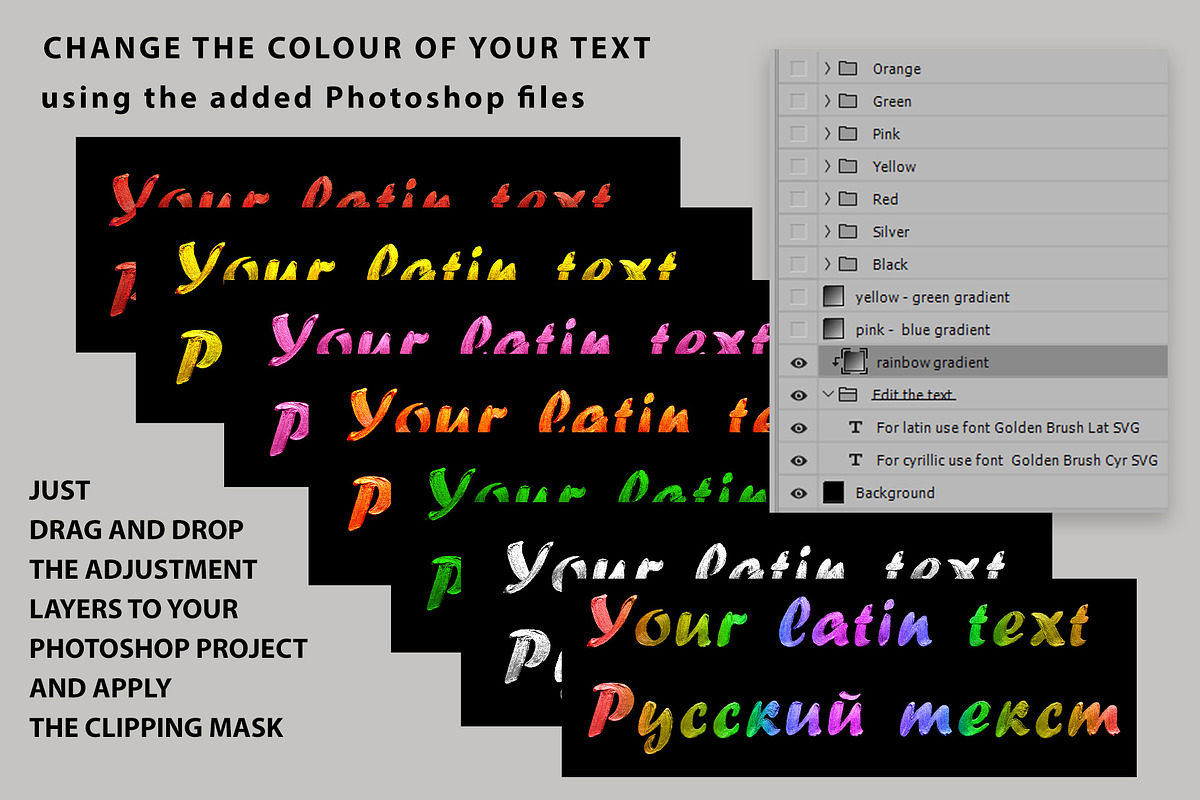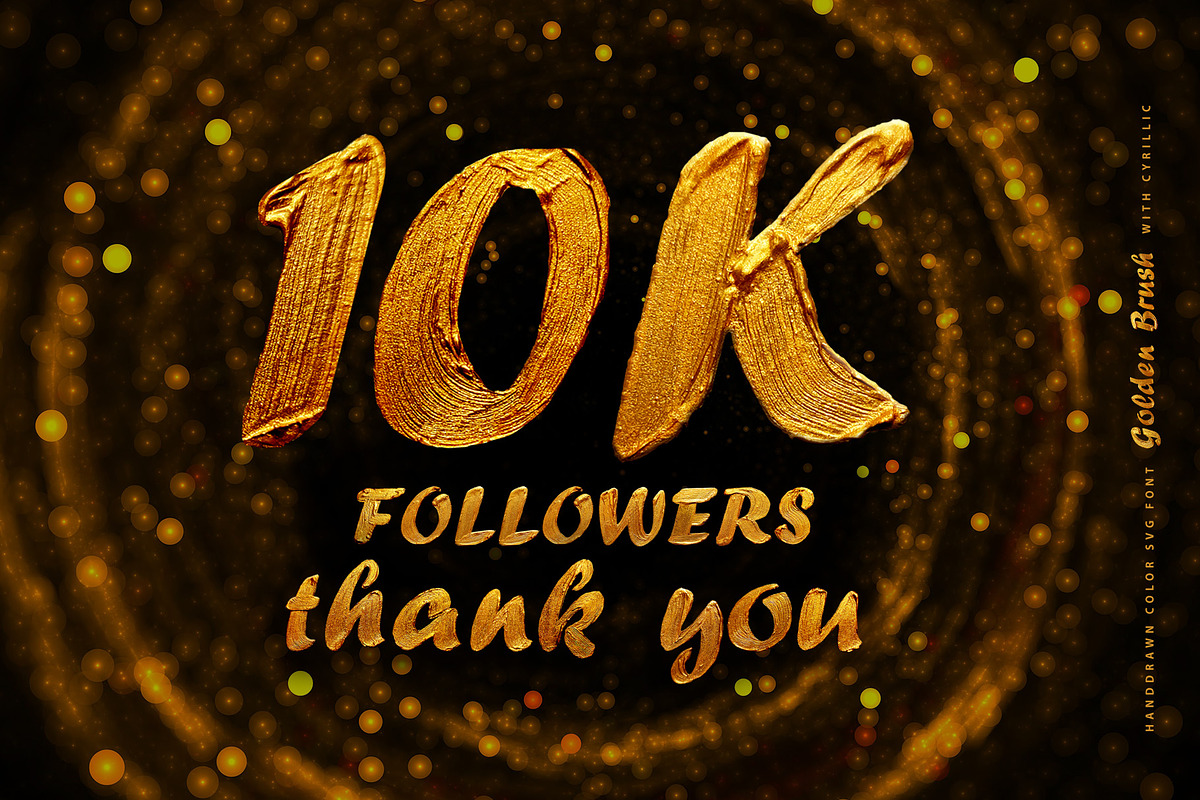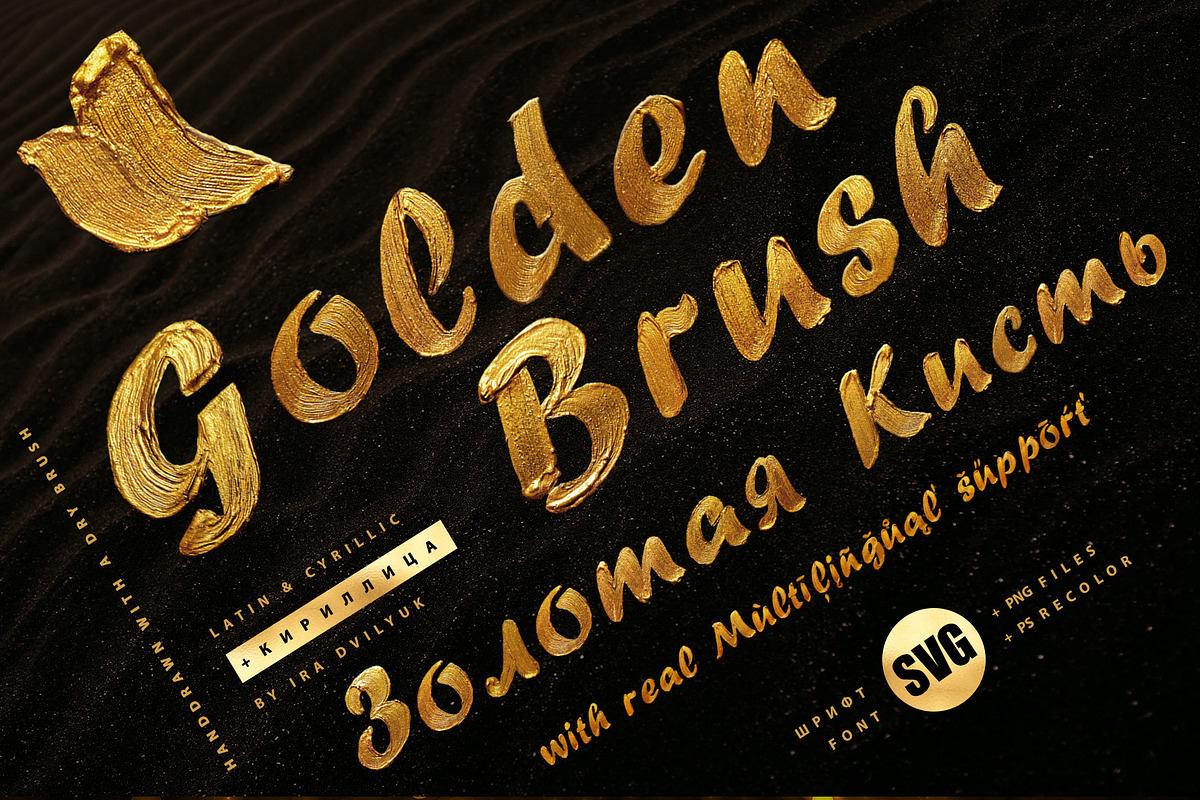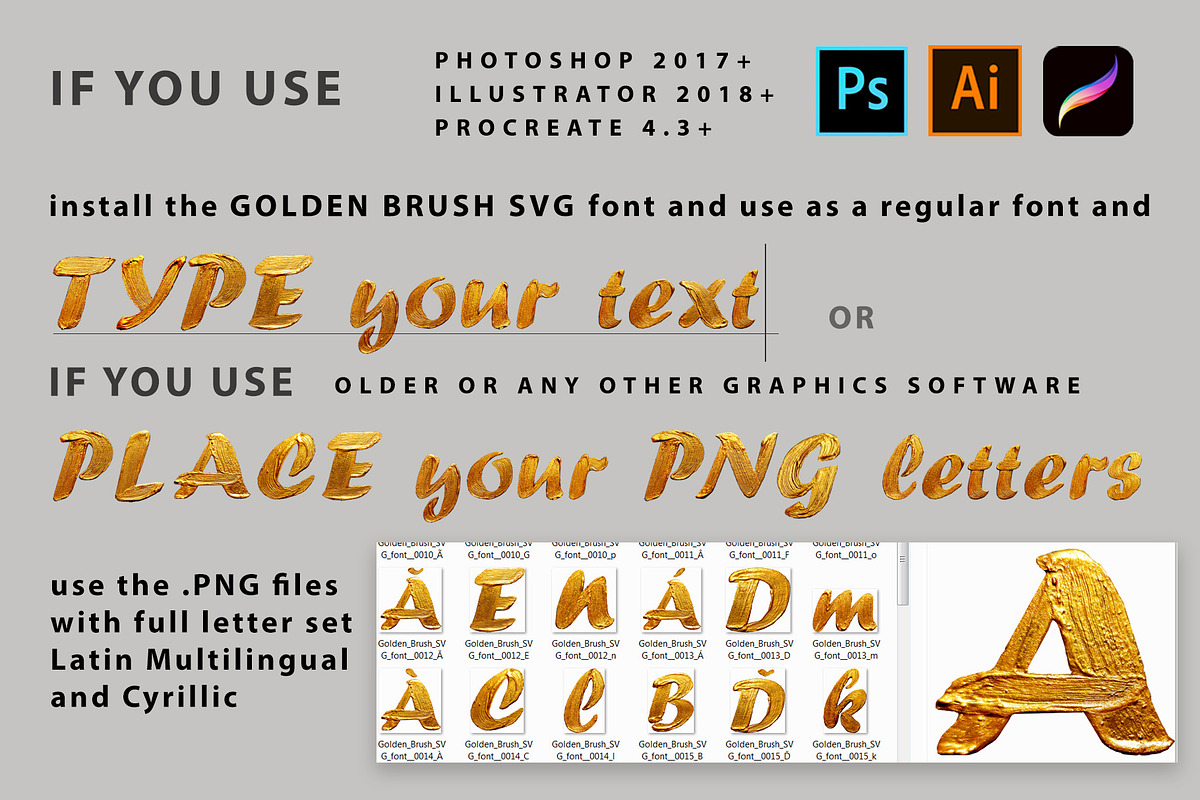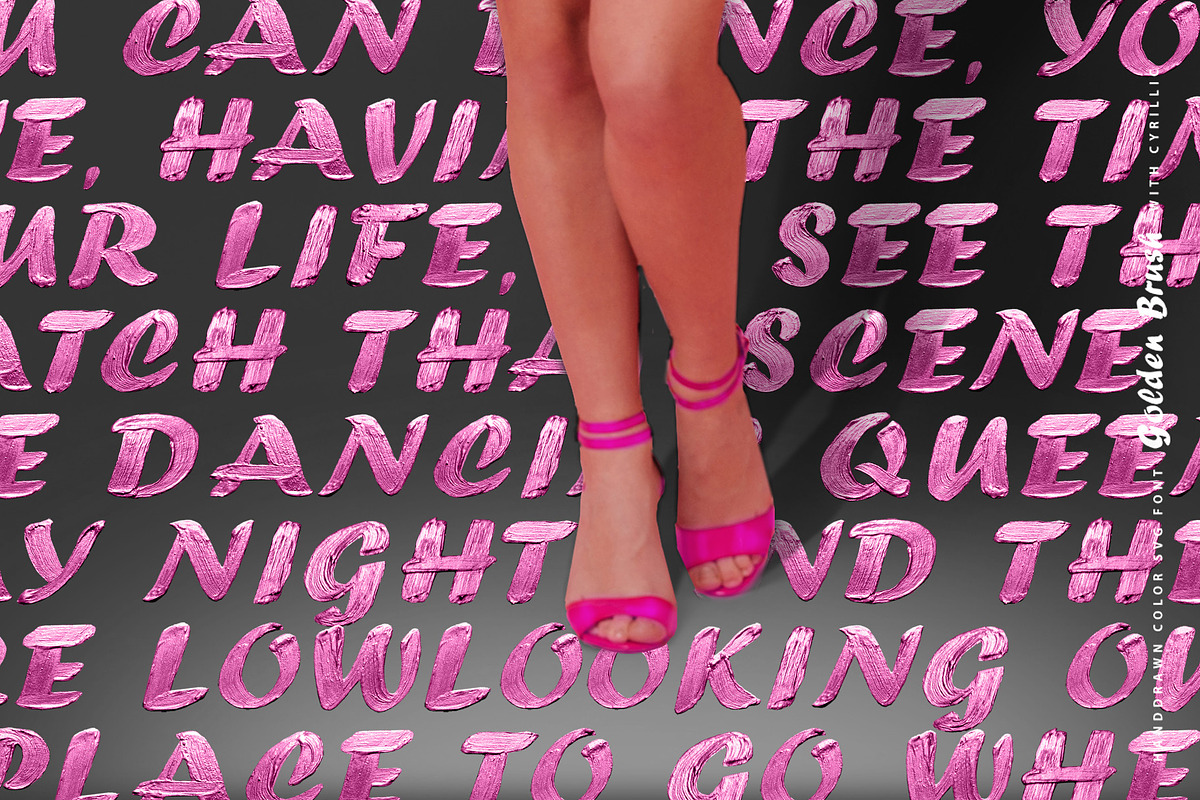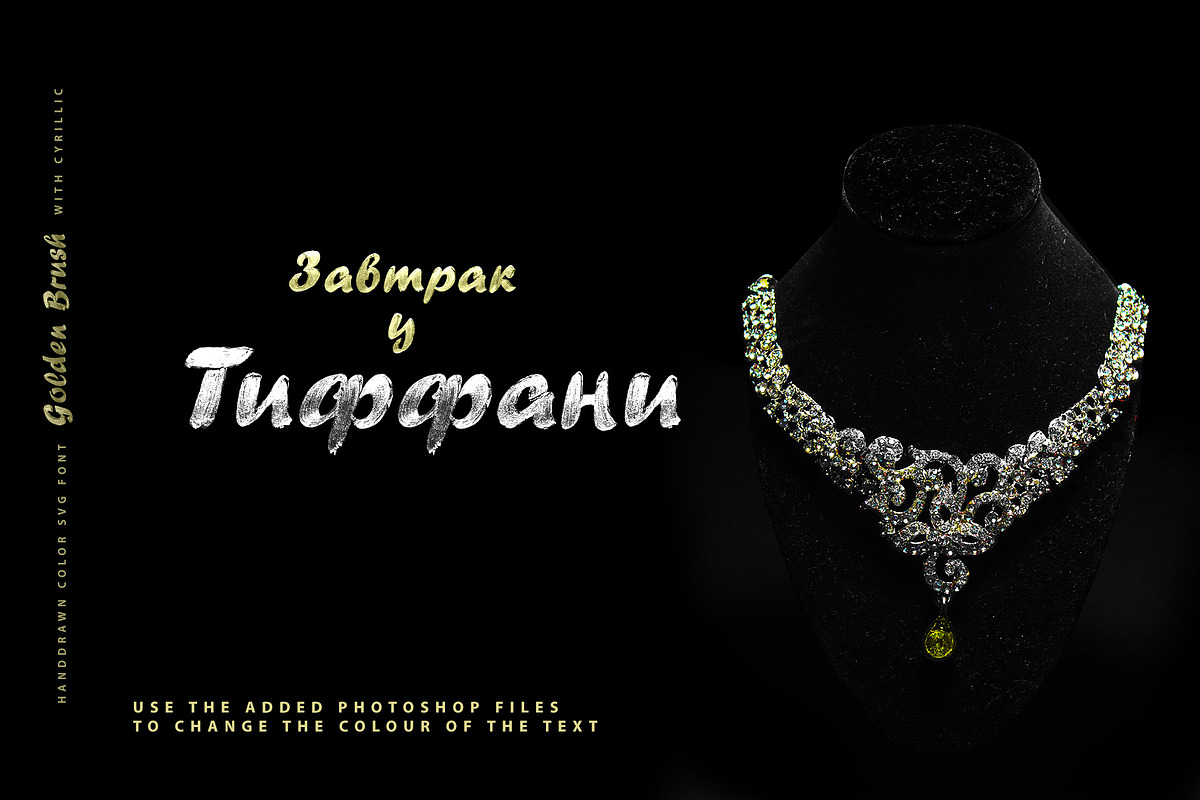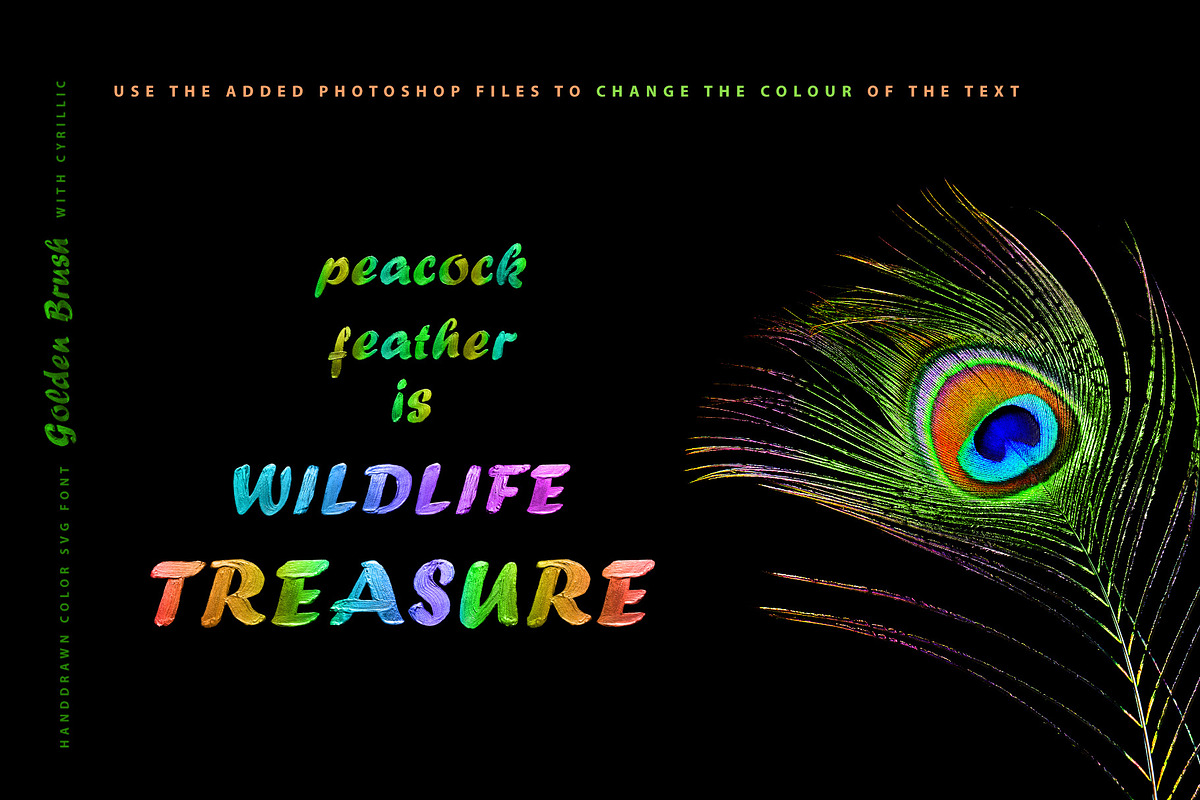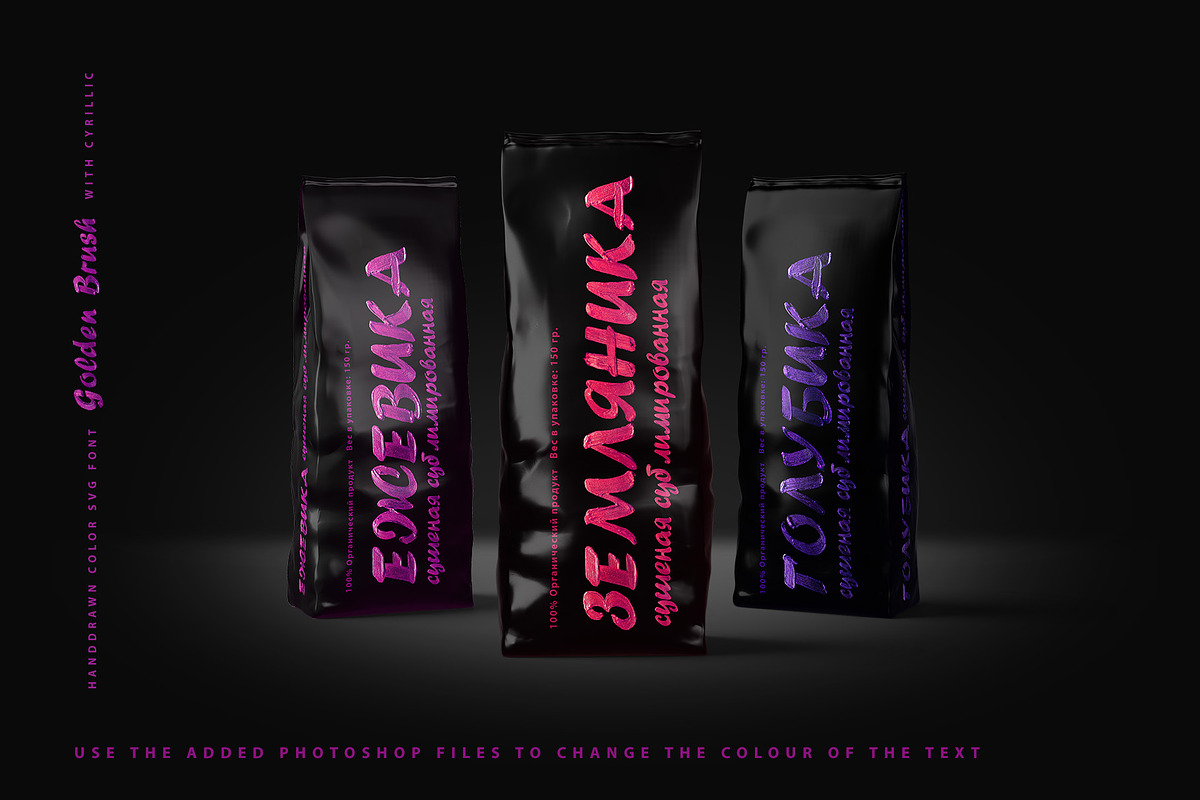
Golden Brush SVG Cyrillic Font
I'm happy to present you Golden Brush SVG Textured Cyrillic Font, hand-drawn with a dry brush golden oil paint. It will look great on branding design, posters, apparel, logotype, Ad, fashion design, wedding card design, and more.
Font contains real multilingual support for all foreign glyphs you need: Latin glyphs for Afrikaans, Albanian, Basque, Bosnian, Catalan, Danish, Dutch, English, Estonian, Faroese, Filipino, Finnish, French, Galician, Indonesian, Irish, Italian, Malay, Norwegian Bokmål, Portuguese, Slovenian, Spanish, Swahili, Swedish, Turkish, Welsh, Zulu.
And Cyrillic glyphs support for Russian, Belorussian, Bulgarian, Ukrainian, and Kazakh languages.
Golden Brush SVG Latin Font - the first part of OpenType-SVG font with hand-drawn dry brush golden oil paint textures. Contains upper & lowercase characters, numerals & punctuations, and Multilingual Support for 27 languages.